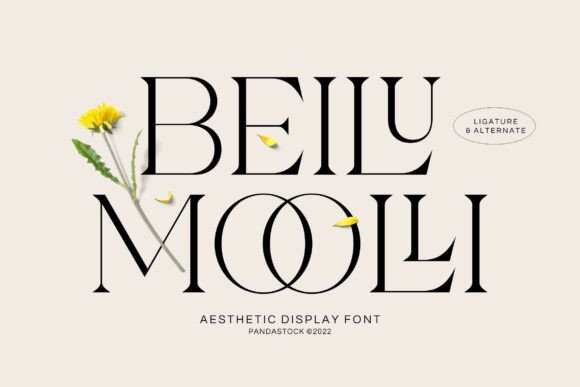
Introducing Beilu Moolli Font: The Perfect Blend of Neoclassical Elegance and Modern Flair
In the world of typography, fonts play a crucial role in conveying the tone and personality of a brand. A well-designed font can elevate a brand’s visual identity and make it stand out in a crowded market. Beilu Moolli Font is one such font that has been making waves in the design community with its unique blend of neoclassical structure and modern flair.
What is Beilu Moolli Font?
Beilu Moolli Font is an aesthetic display font that combines the elegance of neoclassical typography with the sophistication of modern design. This font is perfect for brands that want to convey a sense of luxury, sophistication, and contemporary style.
Beilu Moolli Font features a distinctive neoclassical structure with clean lines, elegant curves, and a sense of grandeur. However, what sets it apart from traditional neoclassical fonts is its modern flair, which gives it a fresh and contemporary feel. This font is ideal for use in fashion and beauty branding, magazine covers, packaging, posters, invitations, and any project that requires a luxe, modern voice.
Key Features of Beilu Moolli Font
- Neoclassical Structure: Beilu Moolli Font features a traditional neoclassical structure with clean lines, elegant curves, and a sense of grandeur.
- Modern Flair: The font has a modern twist that gives it a fresh and contemporary feel, making it perfect for brands that want to stand out in a crowded market.
- Luxe Aesthetic: Beilu Moolli Font has a luxurious aesthetic that makes it ideal for use in high-end branding, magazine covers, and packaging.
- Versatile: This font is versatile and can be used in a variety of projects, from fashion and beauty branding to posters, invitations, and more.
Use Cases for Beilu Moolli Font
Beilu Moolli Font is a versatile font that can be used in a variety of projects. Here are some use cases where this font can shine:
- Fashion and Beauty Branding: Beilu Moolli Font is perfect for fashion and beauty brands that want to convey a sense of luxury, sophistication, and modernity.
- Magazine Covers: This font is ideal for magazine covers, especially those that focus on fashion, beauty, and lifestyle.
- Packaging: Beilu Moolli Font can be used in packaging design to give products a luxurious and high-end feel.
- Posters: This font is perfect for posters that require a bold and eye-catching headline.
- Invitations: Beilu Moolli Font can be used in invitations to give them a luxurious and sophisticated feel.
Why Choose Beilu Moolli Font?
There are many fonts available in the market, but Beilu Moolli Font stands out from the rest due to its unique blend of neoclassical structure and modern flair. Here are some reasons why you should choose Beilu Moolli Font:
- Unique Aesthetic: Beilu Moolli Font has a unique aesthetic that sets it apart from other fonts.
- High-Quality Design: This font is designed with high-quality craftsmanship, ensuring that it looks great in any project.
- Versatile: Beilu Moolli Font is versatile and can be used in a variety of projects.
- Easy to Read: This font is easy to read, even at small sizes.
Tips for Using Beilu Moolli Font
Here are some tips for using Beilu Moolli Font effectively:
- Use it as a Display Font: Beilu Moolli Font is designed as a display font, so use it for headlines and titles.
- Pair it with a Sans-Serif Font: Pair Beilu Moolli Font with a sans-serif font for body text to create a nice contrast.
- Experiment with Font Sizes: Experiment with different font sizes to create visual interest.
- Use it in Limited Colors: Use Beilu Moolli Font in limited colors to create a cohesive look.
Beilu Moolli Font is a stunning display font that blends neoclassical structure with modern flair. Its unique aesthetic, high-quality design, and versatility make it perfect for fashion and beauty branding, magazine covers, packaging, posters, invitations, and any project that requires a luxe, contemporary voice. With its easy-to-read design and flexibility, Beilu Moolli Font is an excellent choice for designers and brands looking to elevate their visual identity.